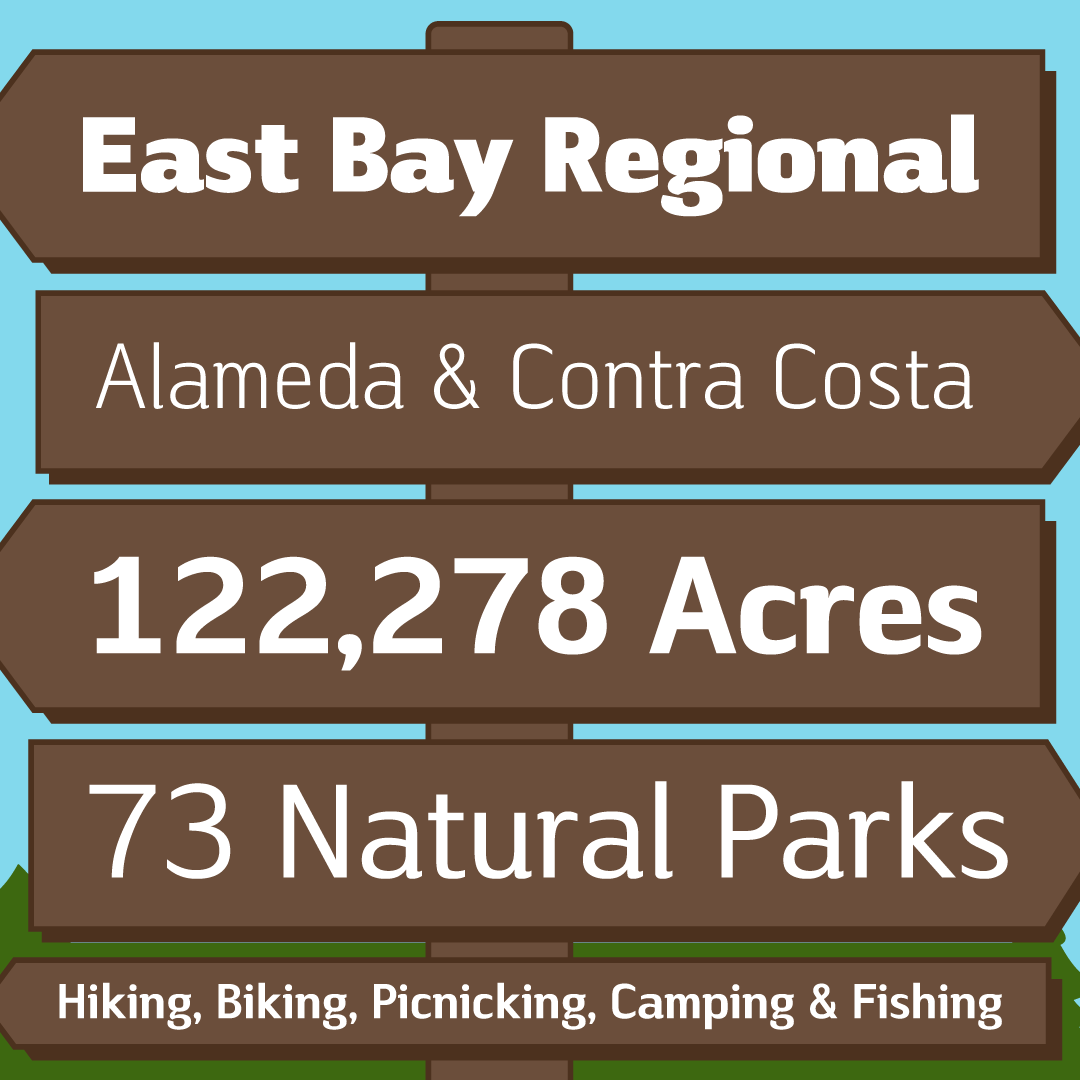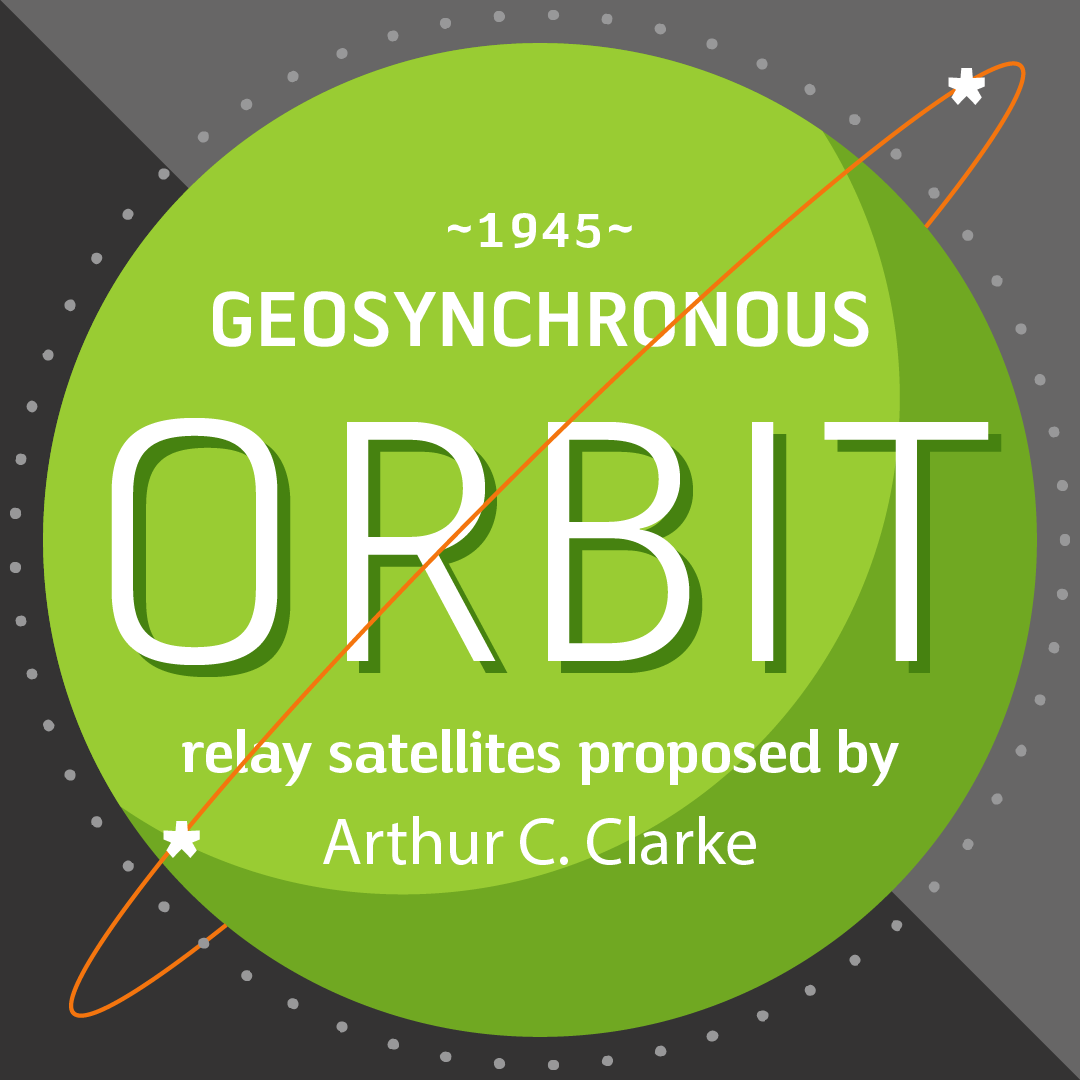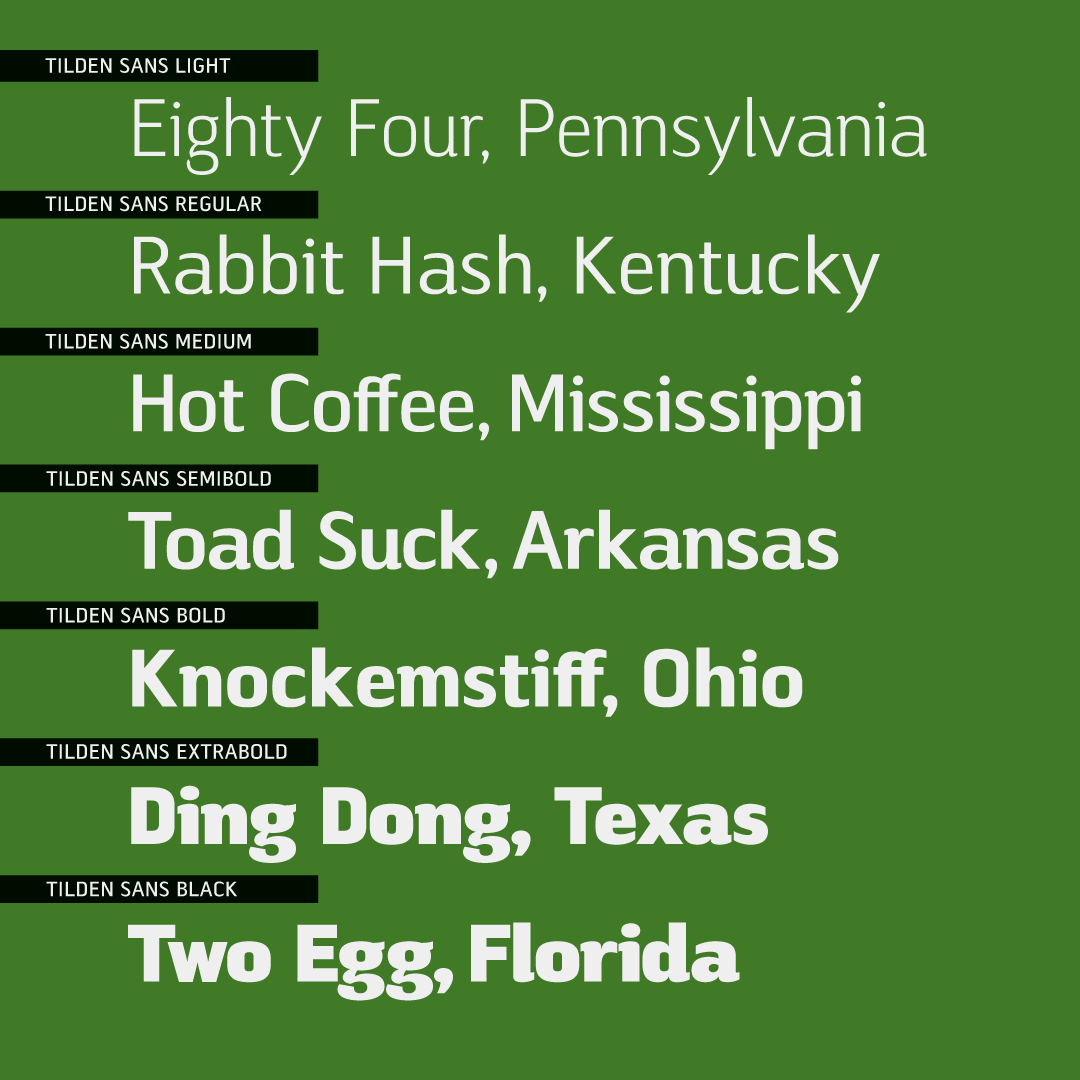
Tilden Sans™
A versatile and contemporary design
with an affable bearing.
Designed by Delve Withrington
Thoroughly contemporary, clean, and ready for work, Tilden Sans was designed by Delve Withrington to be no-nonsense but still stylish and friendly. Tilden Sans is square-ish with low contrast and a generous x-height. Curvilinear strokes like those in the capitals C or S, and many lowercase letters feature incised terminals offering a measure of distinction from other sans serifs, without sacrificing legibility. All of those features work in unison to make this typeface a pleasure to use and read.
The Tilden Sans family has seven useful weights ranging from Light to Black and features a glyph repertoire of over 900 glyphs covering over 200 languages.
This versatile typeface performs brilliantly in a host of sizes. The Regular and Medium weights can be used at text sizes, while the Light and Black weights are great for display size settings.
Additional features include: Localized Forms, Subscript, Superscript, Numerators, Denominators, Fractions, Ordinals, Case-Sensitive Forms, Standard Ligatures, and Slashed Zero.